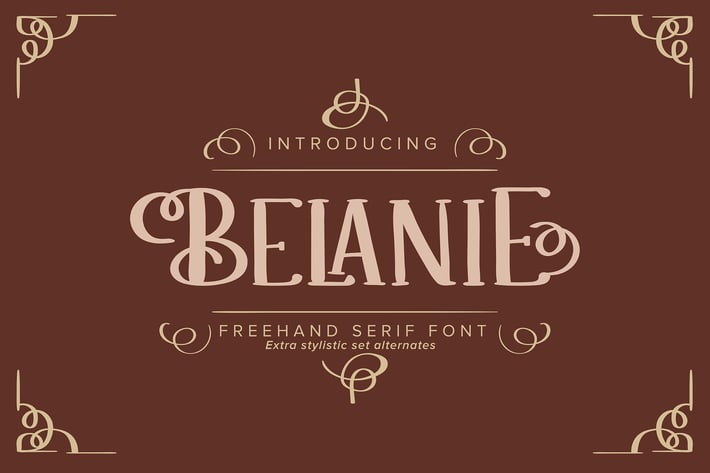
Belanie | Freehand Serif Font
Belanie | Freehand Serif Font with a calligraphy style, So beautiful on invitation like greeting cards, branding materials, business cards, quotes, posters, and more!